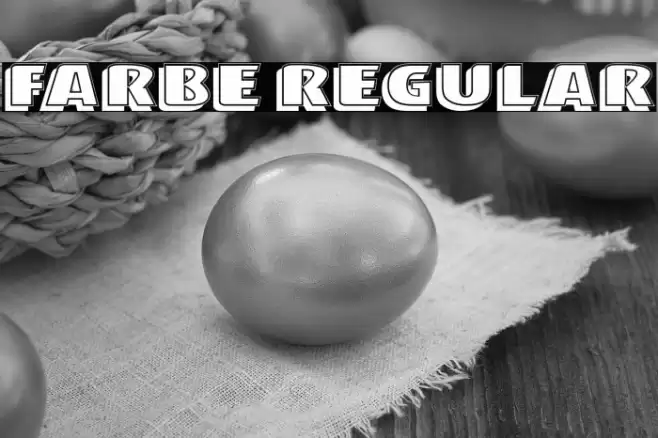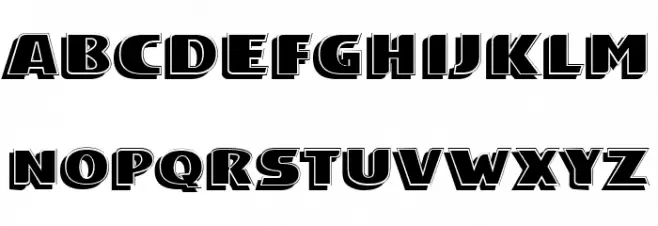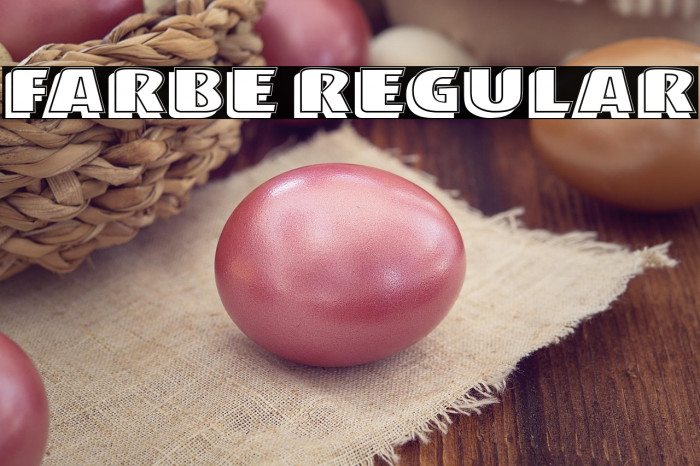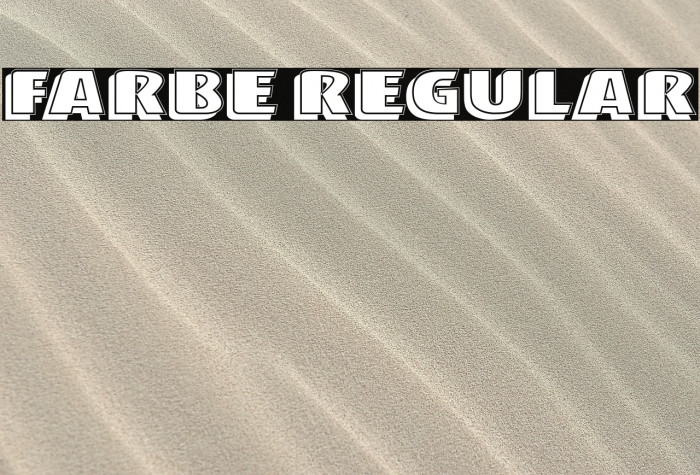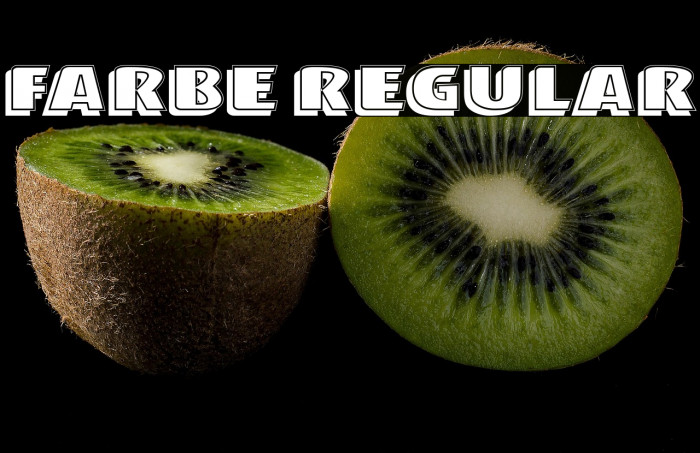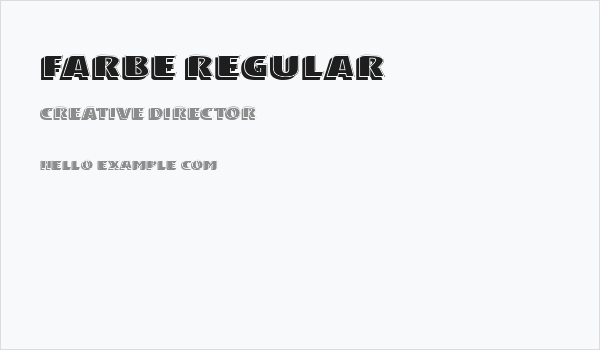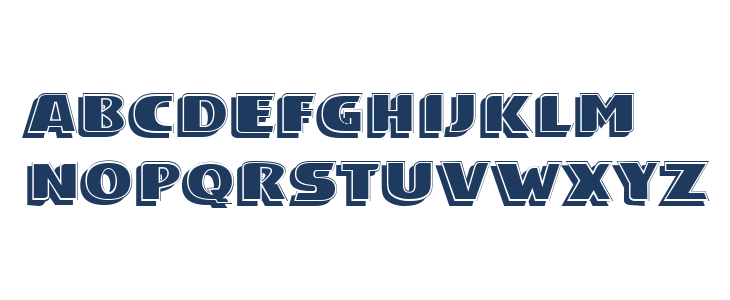
Farbe Regular Font
Farbe Regular Description
This font features a bold and striking design with a three-dimensional effect, achieved through the use of shadowing and outlines. The characters are uppercase, showcasing a geometric and angular style that gives a sense of depth and dimension. The font's strong presence makes it ideal for attention-grabbing headlines and titles. Its unique design elements, such as the sharp edges and bold lines, contribute to a modern and dynamic appearance. The font maintains a consistent weight throughout, ensuring readability while adding a touch of sophistication and flair.
A bold, three-dimensional font with geometric and angular design elements from Uncategorized fonts.
- Proposed Projects: Ideal for branding, posters, headlines, and any project requiring a bold statement.